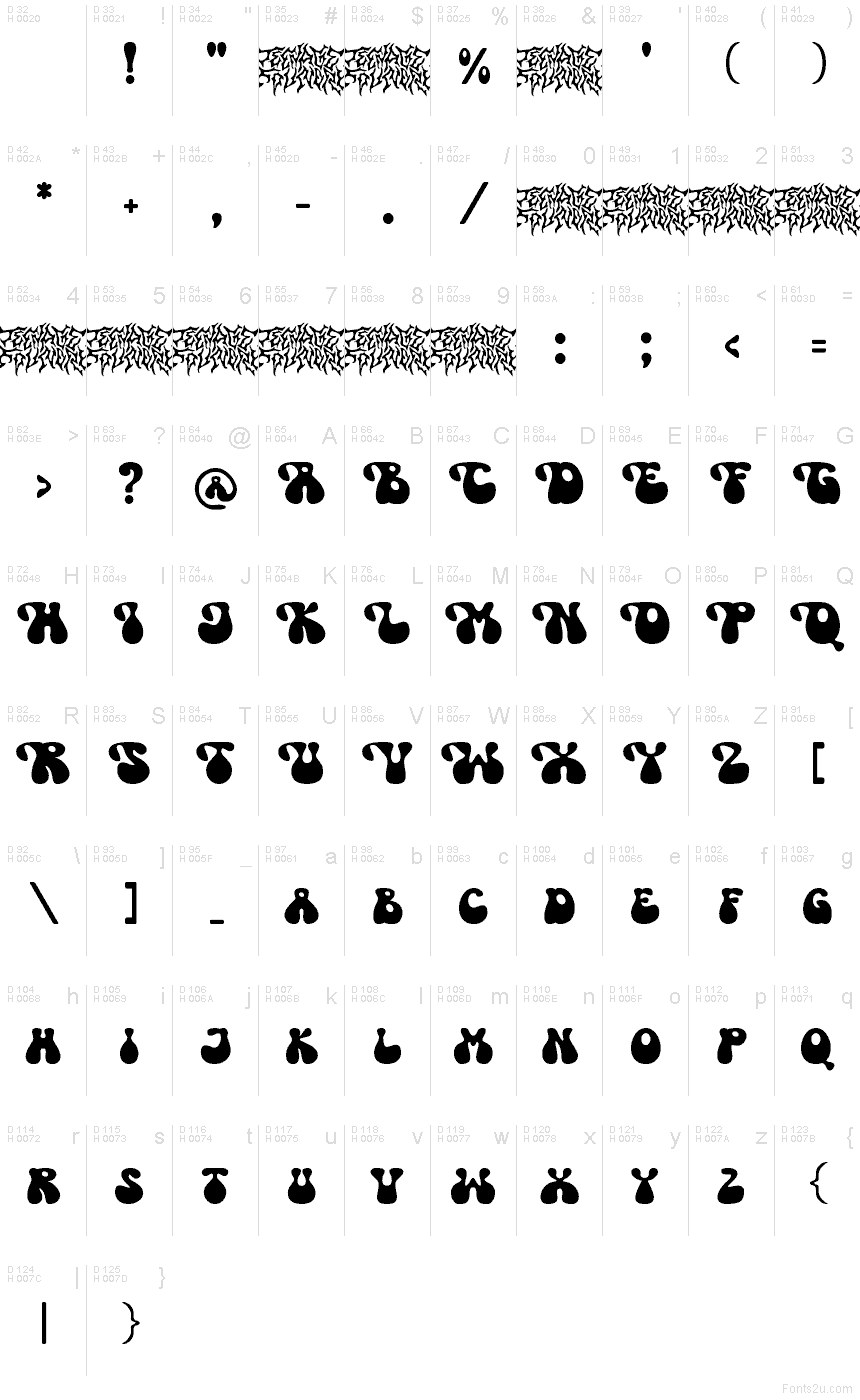
Teenage Crookite Demo
Teenage Crookite font by Teenage Foundry is a free groovy display typeface that feels like it dripped straight out of a ’70s poster shop. Chunky, inky letterforms bulge and curve with a playful wobble, while the tight rhythm across the word keeps it surprisingly readable at large sizes. The shapes feel almost liquid, like wet paint that’s just starting to sag, giving your titles a bold, slightly mischievous attitude.
Using Teenage Crookite, your work instantly leans into psychedelic branding, vintage music posters, album covers, festival graphics, and bold social media titles. This free font also shines on stickers and merch where you want a hand-drawn, rebellious edge without losing cohesion. Pair it with a clean, modern sans-serif in smaller text and let Teenage Crookite stay big and loud in headlines for maximum impact.